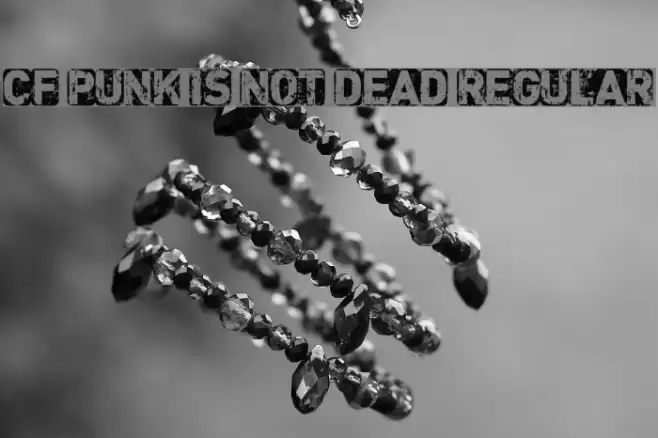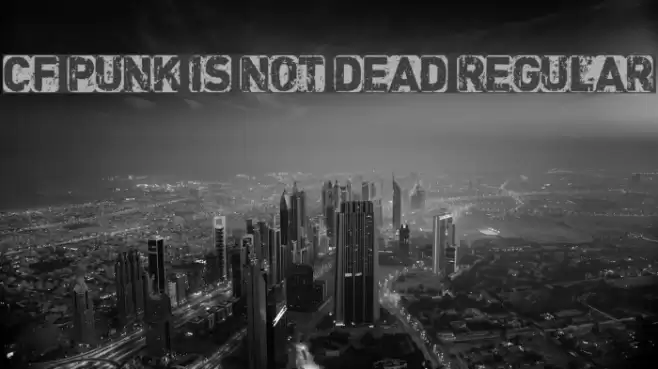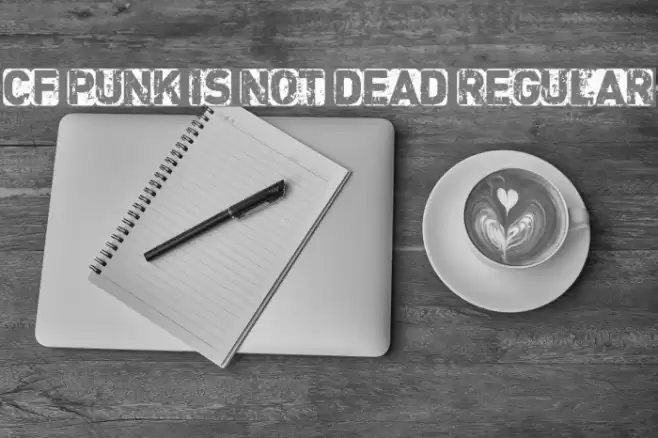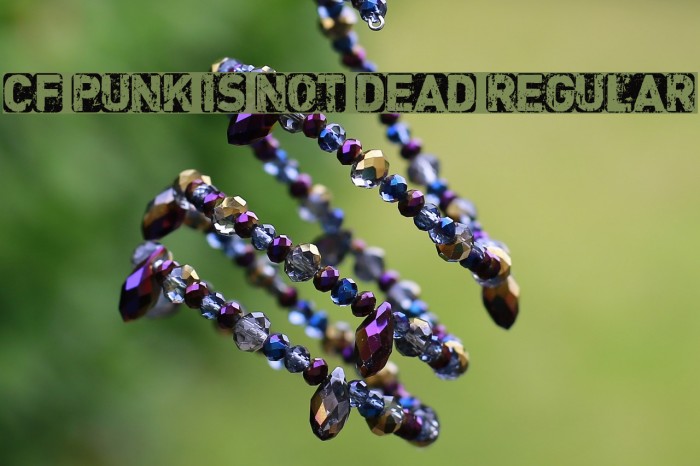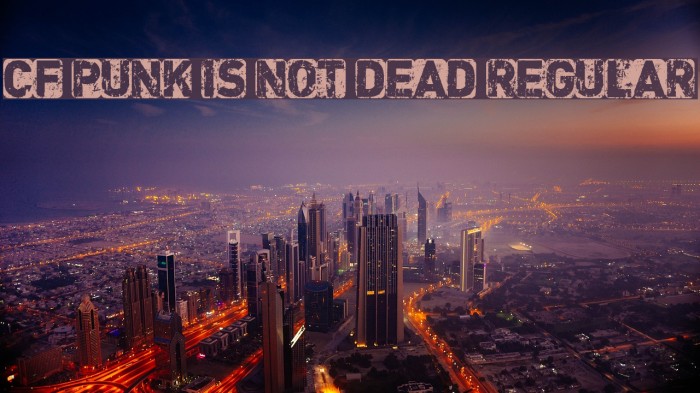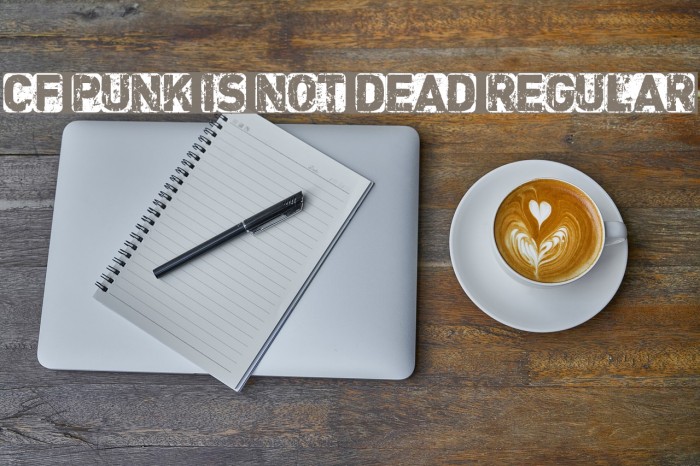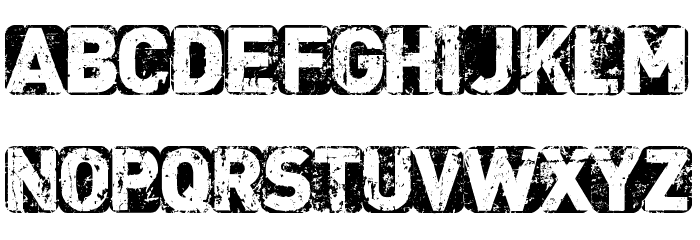
CF Punk is not Dead Regular Font
CF Punk is not Dead Regular Description
This font features a bold, distressed style that evokes a gritty, urban aesthetic. The characters are heavily textured, giving them a worn and rugged appearance, reminiscent of street art or punk rock album covers. The uppercase letters are uniformly bold, with a blocky structure that enhances their impact. The distressed effect is consistent across all characters, adding a sense of dynamism and energy. This font is ideal for projects that aim to convey a rebellious or edgy vibe, making it perfect for music posters, album art, or any design that requires a bold statement.
A bold, distressed font with a gritty, urban aesthetic from Fancy fonts.
- Proposed Projects: Ideal for music posters, album covers, streetwear branding, and edgy graphic designs.
- Overall Style: Urban, Edgy, Punk